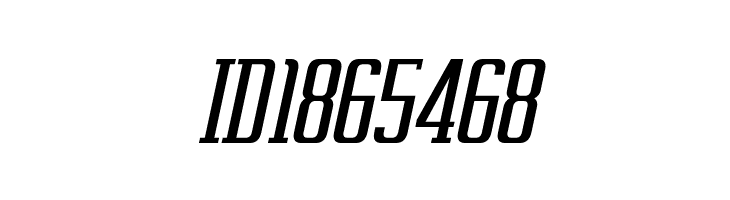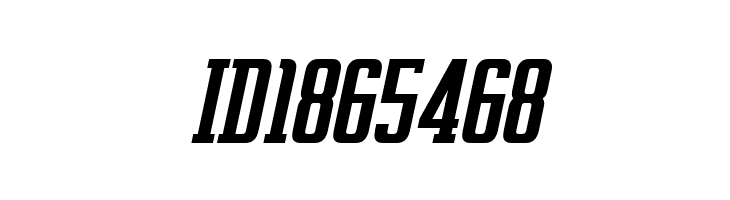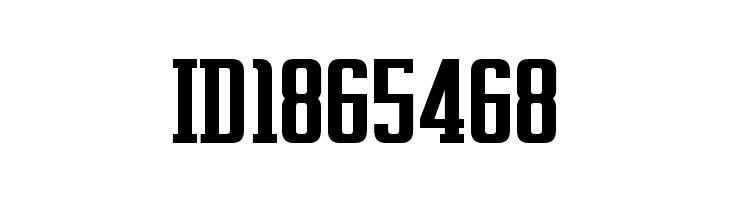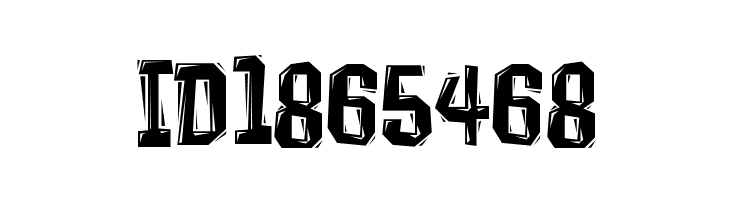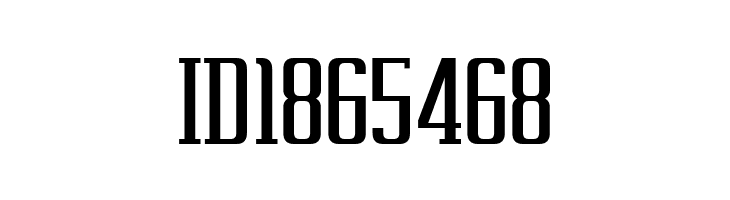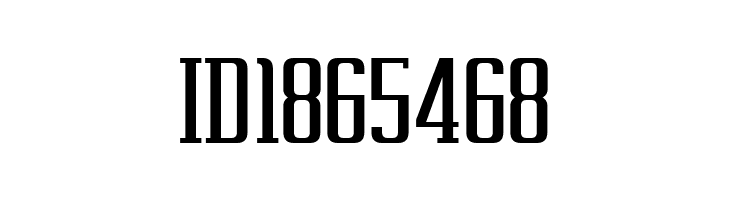
A bold, angular font with a three-dimensional, shadow-like effect.
A bold, serif font with a vintage yet modern style, featuring thick strokes and strong serifs.
A bold, slab serif font with strong, well-defined characters.
A bold, italicized font with a modern and impactful style.
A modern, italic serif font with sharp angles and a sleek, dynamic style.
A modern italic font with a dynamic slant and sleek design.
A bold, modern serif font with sharp edges and a structured design.